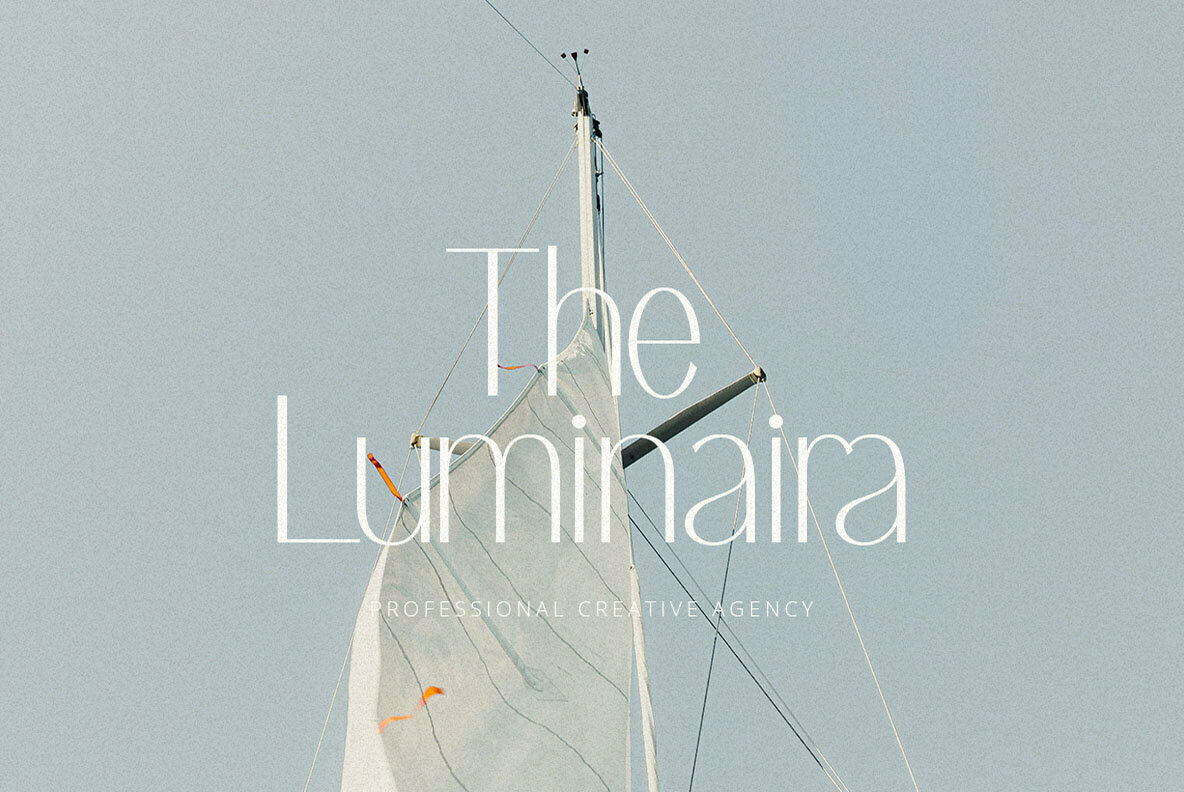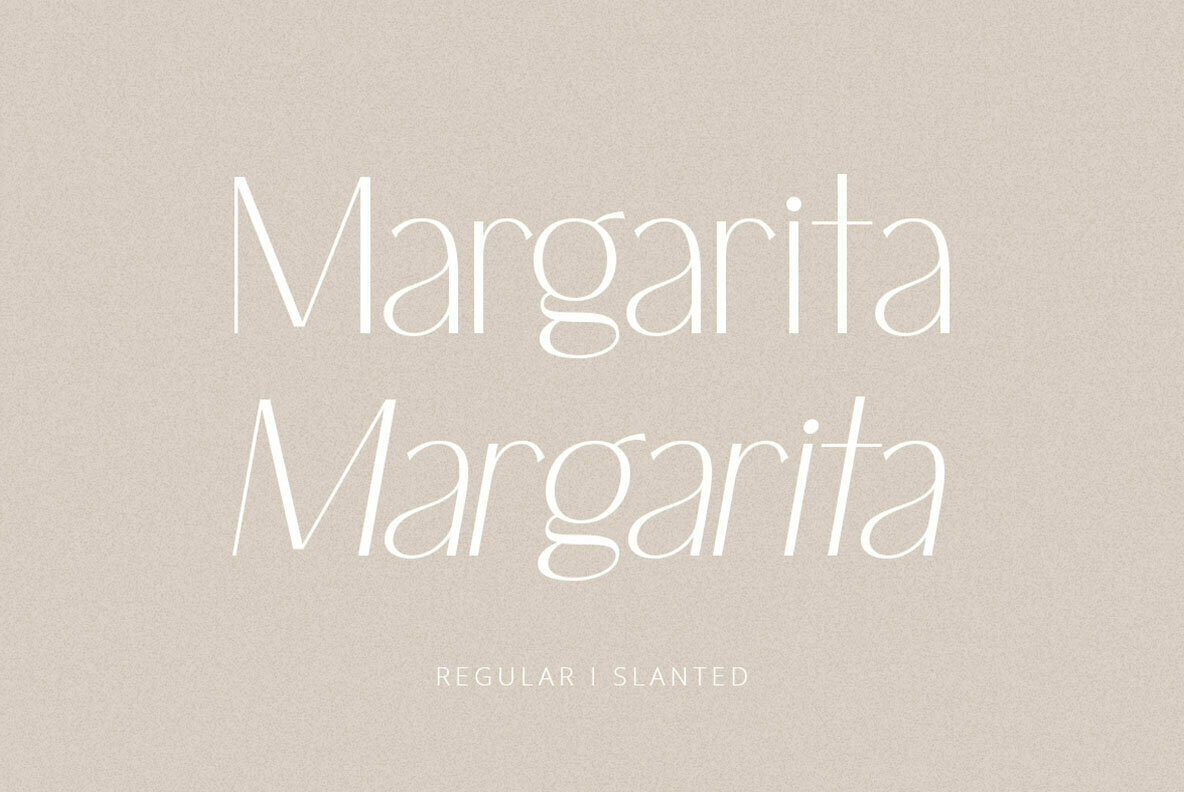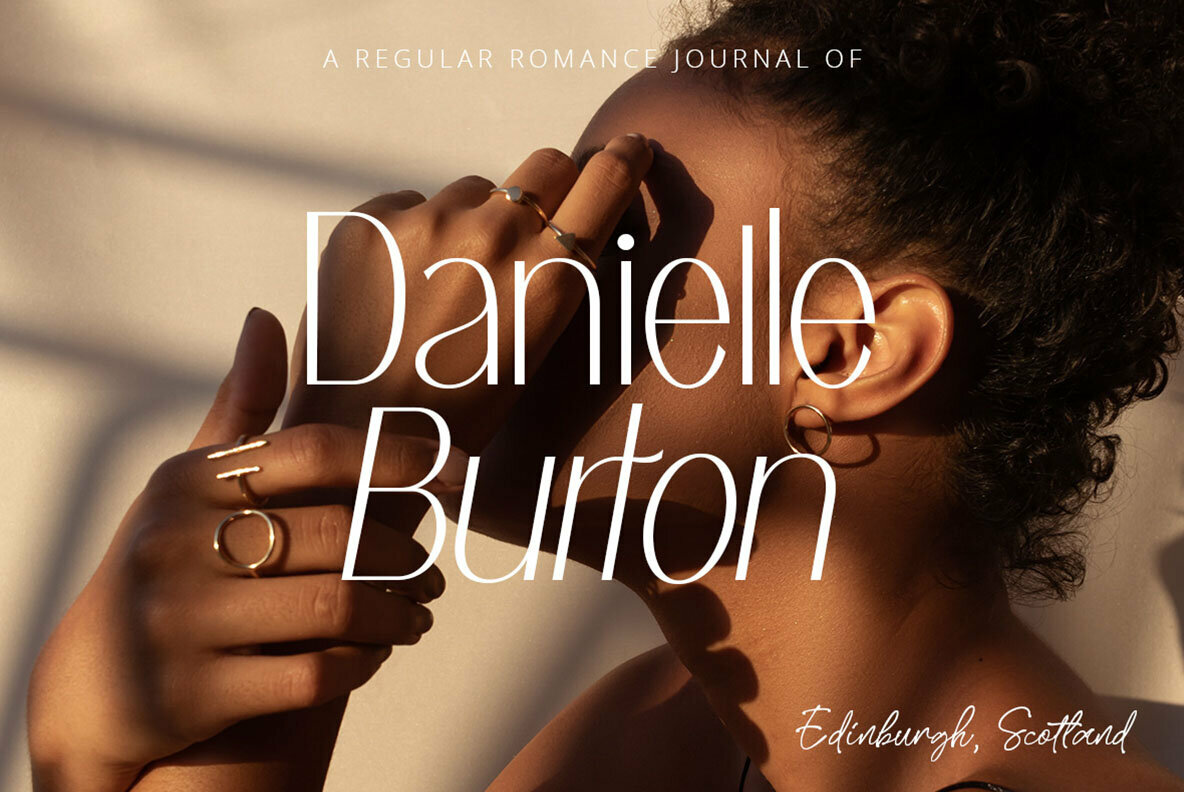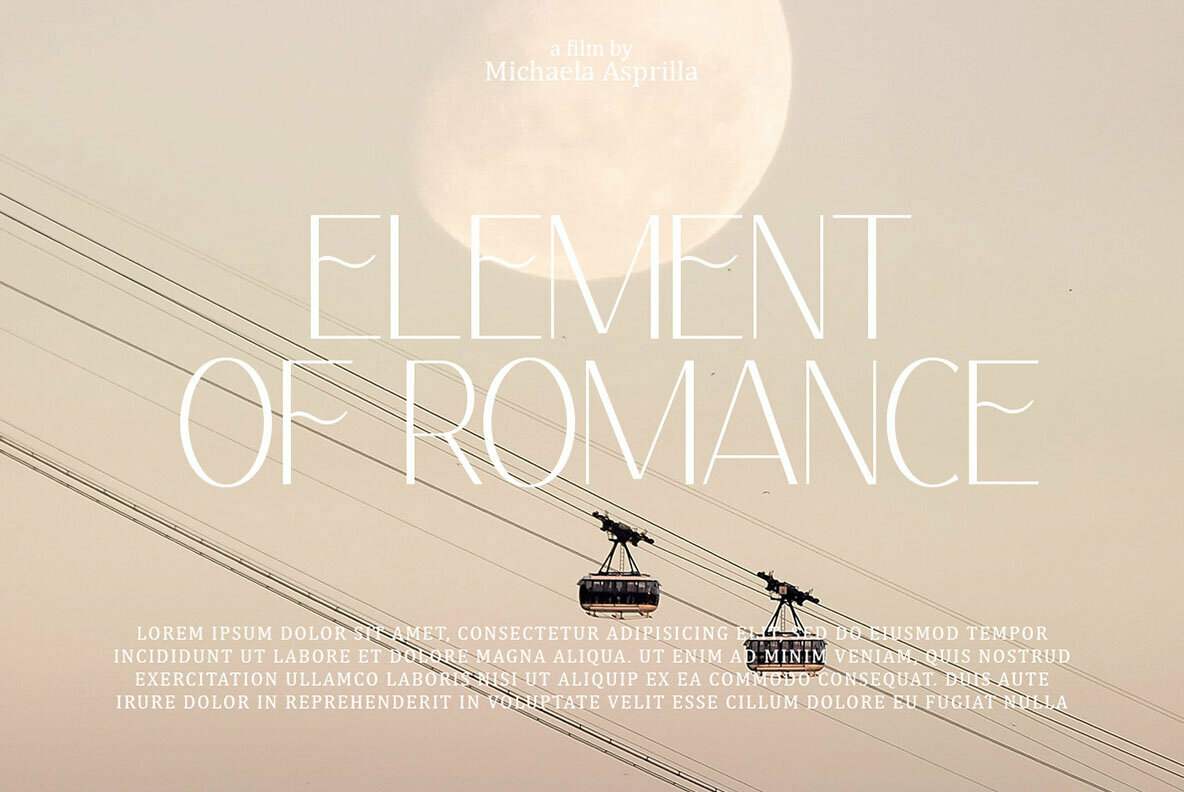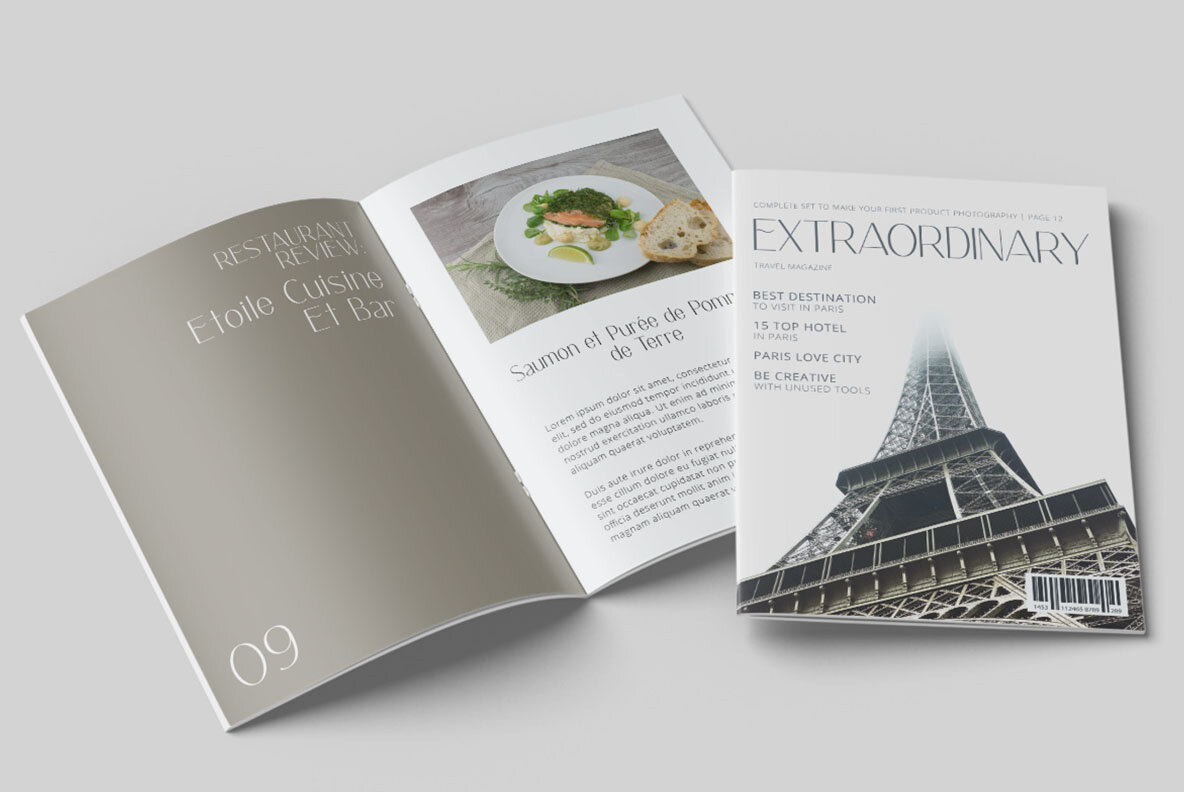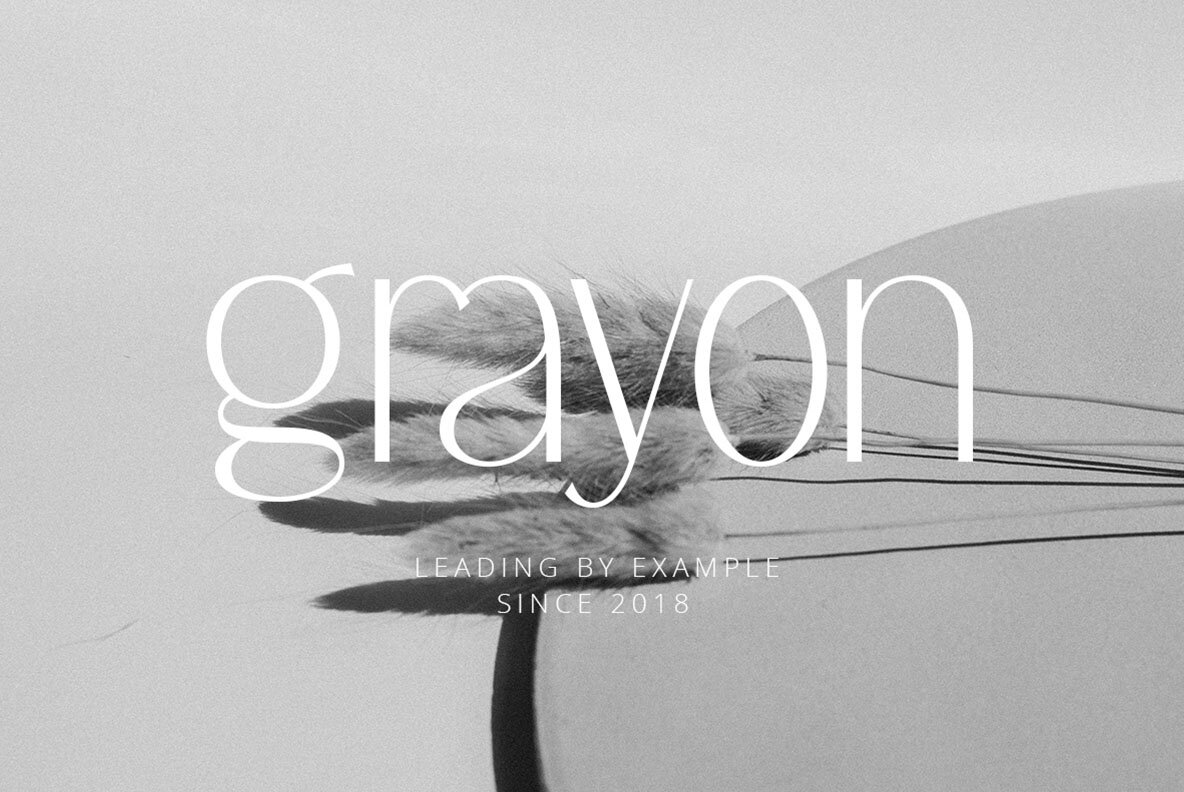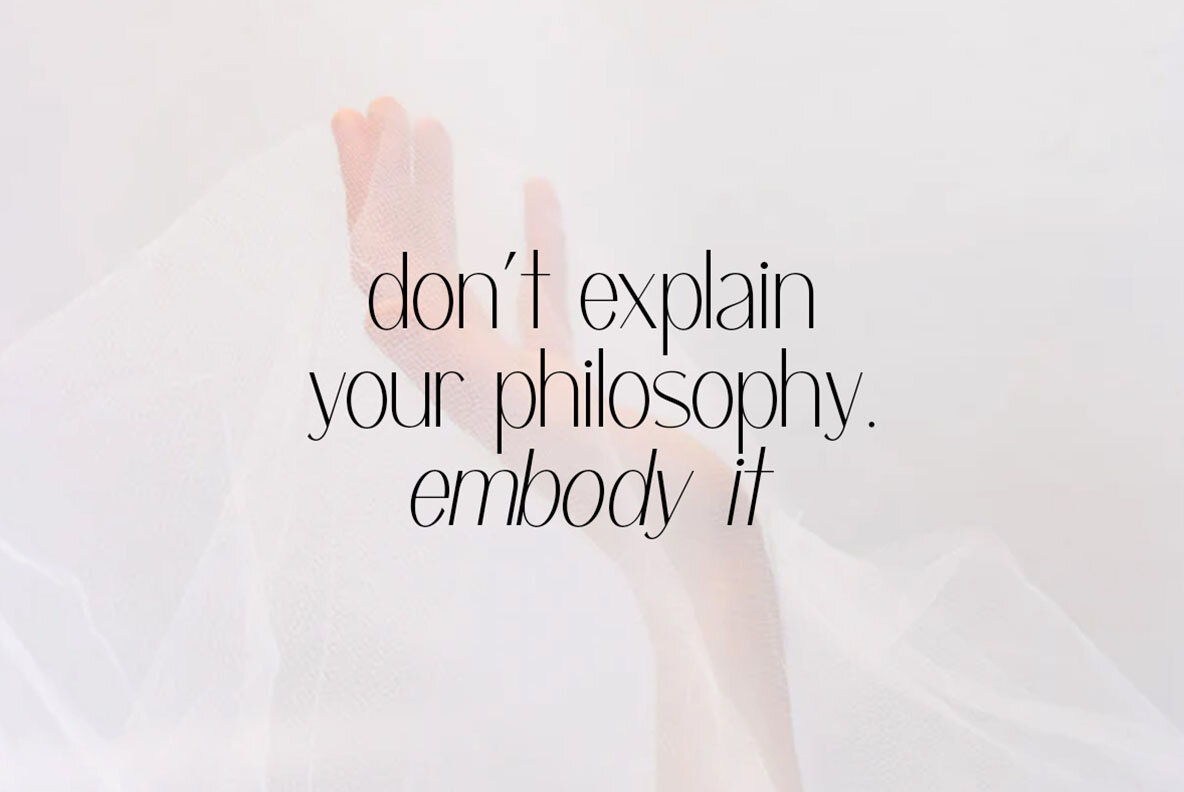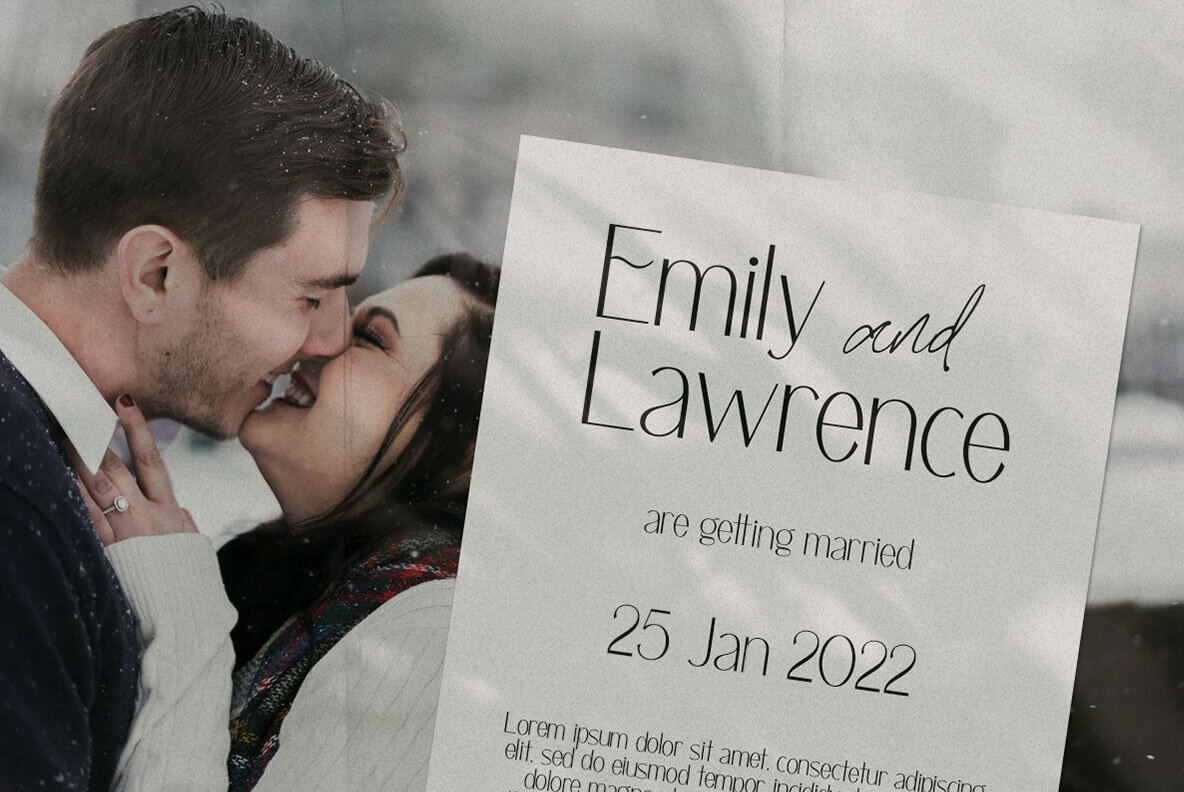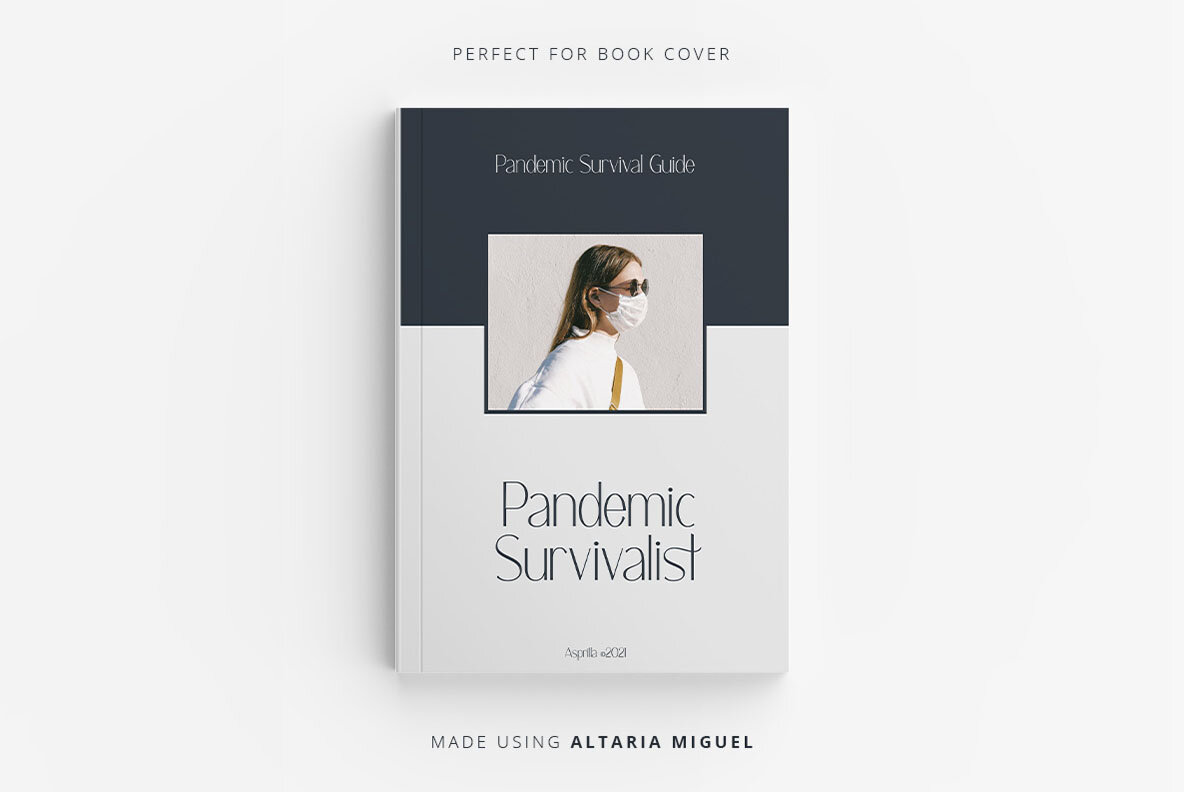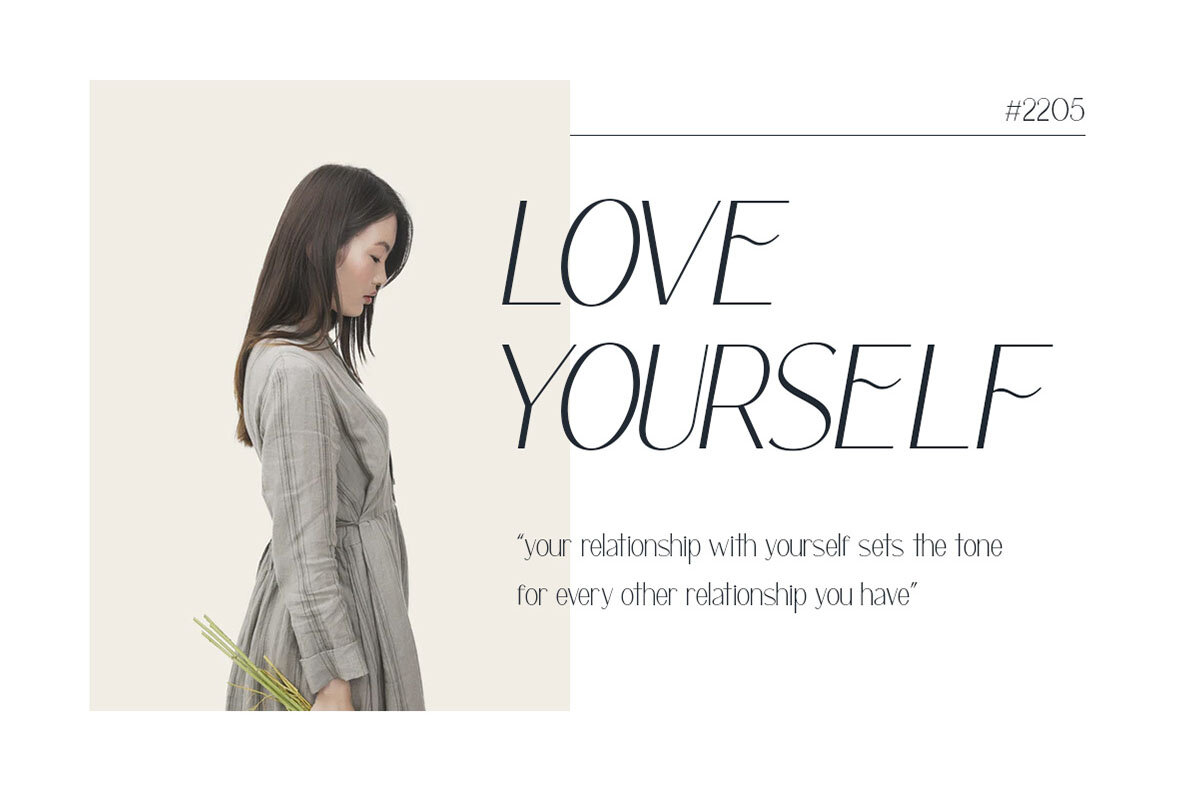
Altaria Miguel Font
The graceful lines and contemporary style of Altaria Miguel make it an indispensable choice for a variety of design projects. Its refined look is ideal for headlines, branding, logos, advertisements, and product design, offering a level of sophistication that enhances visual communication. Crafted with meticulous attention to detail, Altaria Miguel stands out for its precision in kerning and clean aesthetics. This font comes with a unique slanted version, individually re-kerned to ensure optimal spacing and harmony across all variations. Altaria Miguel delivers both form and function for diverse creative needs.Altaria Miguel: A Sleek Sans Serif for Modern Design